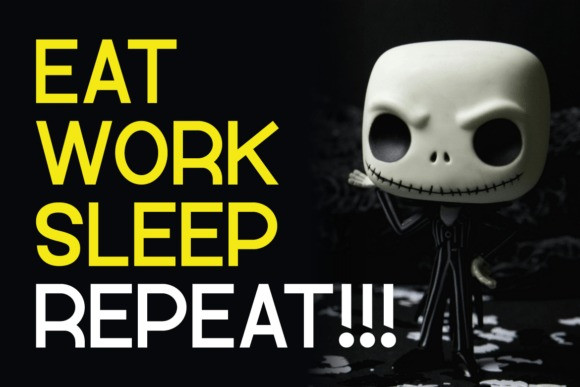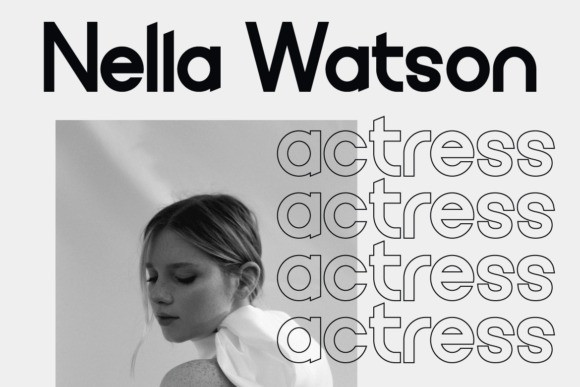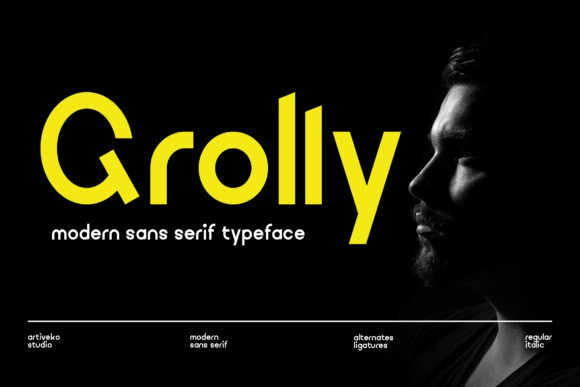
Grolly Font
Grolly Font is a modern sans serif font designed by Iwan Alwan, known for its clean lines and contemporary styling. Its sleek, well-balanced letterforms make Grolly ideal for branding, digital interfaces, and print design, offering a polished and professional look. With multilingual support, ligatures, and alternates, Grolly combines functionality with a stylish, modern aesthetic, making it perfect for projects that demand a fresh, sophisticated touch.
This fonts are great for product logo,wedding card logo, clothing brand logo, Vintage design and much more.